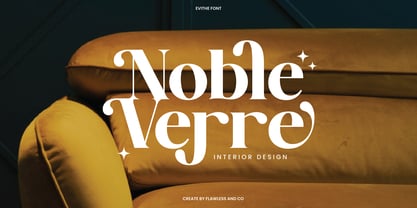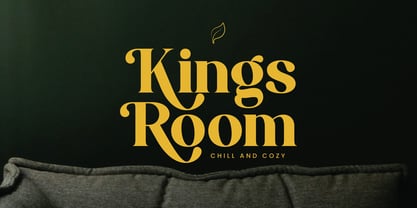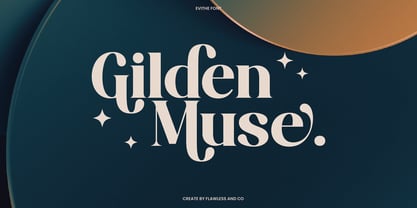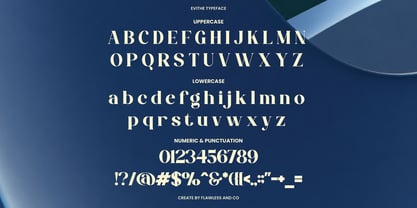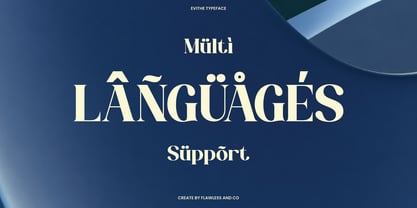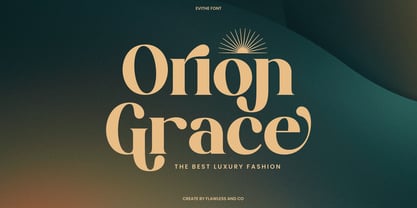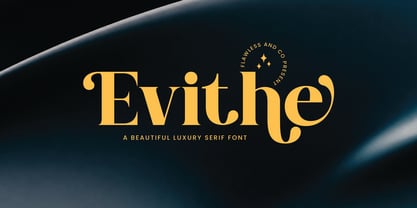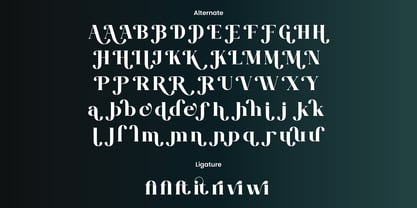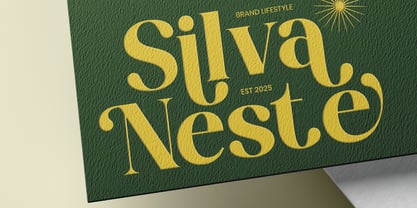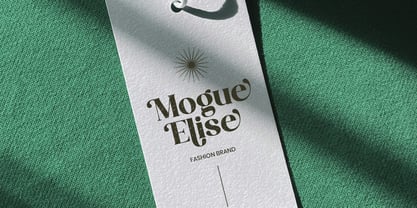
Evithe
by Flawlessandco
The Evithe Font Family was designed by Achmad Yani and published by Flawlessandco. Evithe contains 1 styles. More about this family
Evithe is a stunning display serif font that embodies elegance and sophistication in every curve. Designed with luxurious flair and attention to detail, EVITHE blends timeless beauty with a modern sensibility, making it the perfect choice for those who seek to elevate their visual identity. From upscale branding to high-end fashion editorials, EVITHE adds a touch of class and refinement that leaves a lasting impression.
Features :
Multilingual, Uppercase alphabet A-Z, Lowercase alphabet a-z, Numbers 0-9, Some punctuation, Alternates & Ligatures
Designers: Achmad Yani
Foundry: Flawlessandco